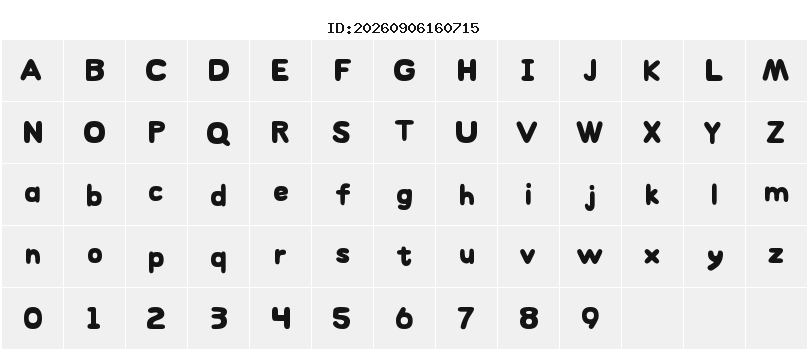
TY Preview
• Font Name: TY
• Font ID: TY:Version 1.00
• Full Font Name: TY
• Version: Version 1.00 August 19, 2015, initial release
• PostScript Name: TY
About TY.ttf
TY.ttf is a modern, elegant sans-serif font designed for ultimate readability and visual harmony. Perfect for branding, headlines, web design, and print materials.